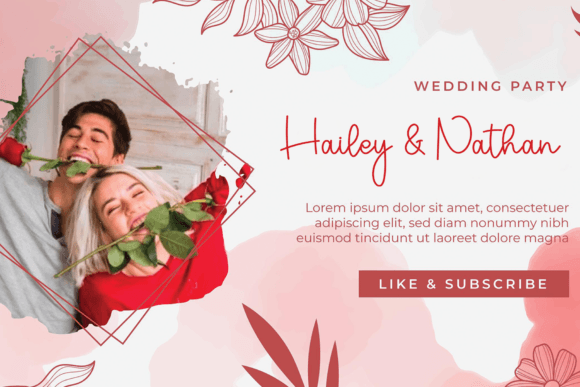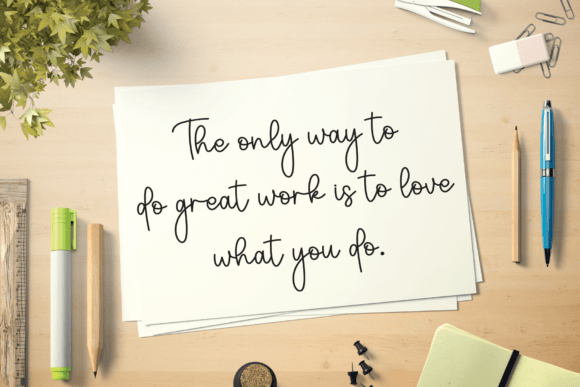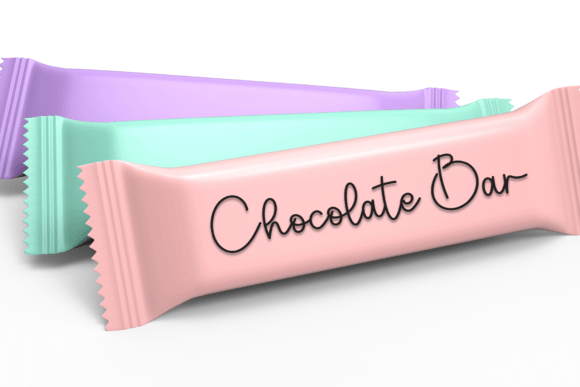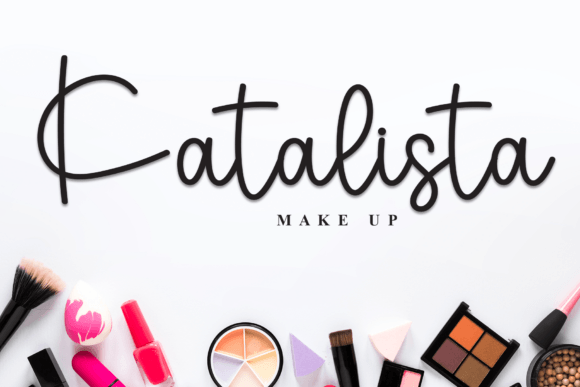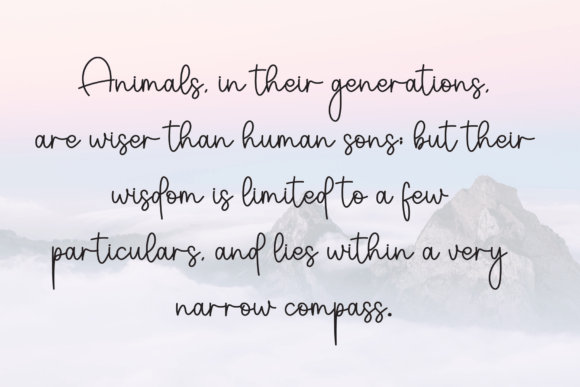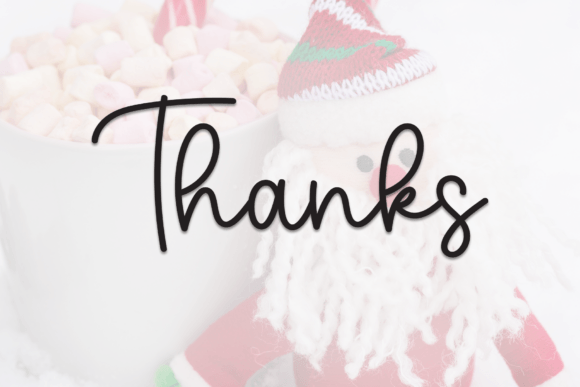
The Sweetest Font for Your Designs: A Deep Dive into Candy Santa
I’ll never forget the time I was working on a festive holiday project for a client, and I just couldn’t find the perfect font to match the whimsical and playful vibe they were going for. The design was supposed to be fun, elegant, and eye-catching, but every font I tried seemed to fall flat. That’s when I stumbled upon Candy Santa, a beautiful, flowing handwritten font that instantly captured the essence of the season. In this article, I’ll share my love for Candy Santa, its unique features, and provide a comprehensive guide on how to make the most of this stunning font.
An Honest Review of Candy Santa
Candy Santa is a true gem, and here’s what I love about it:
• ✨ Elegant and flowing script with a distinct, timeless style
• ✅ Perfect for a wide range of projects, from holiday designs to wedding invitations
• 💫 Incredibly versatile, works well in both digital and print formats
• 🎉 Easy to read, even in smaller font sizes
Of course, no font is perfect, and Candy Santa has a few minor quirks:
• 🤔 Some users might find the font a bit too ornate for very casual projects
• ⚠️ Limited availability of certain special characters, but this can be worked around with OpenType features
One of the best things about Candy Santa is its OpenType features, which allow you to customize your text with:
• Ligatures: combinations of letters that form a single glyph
• Stylistic alternates: alternate versions of letters or glyphs that add more variety to your text
• Swashes: decorative flourishes that can add a touch of elegance to your design
• Glyphs: special characters, such as ornaments or icons, that can enhance your design
By exploring these features, you can unlock the full potential of Candy Santa and create truly unique designs.
The Story Behind Candy Santa
Candy Santa was designed by a talented typographer who wanted to capture the magic of the holiday season in a font. Inspired by vintage candy advertisements and festive holiday decorations, Candy Santa was born. With its elegant, flowing script and whimsical touches, it’s no wonder this font has become a favorite among designers and crafters.
Is Candy Santa suitable for body text? While Candy Santa is beautiful, it’s best suited for headlines and titles. For body text, a clearer font might be more readable.